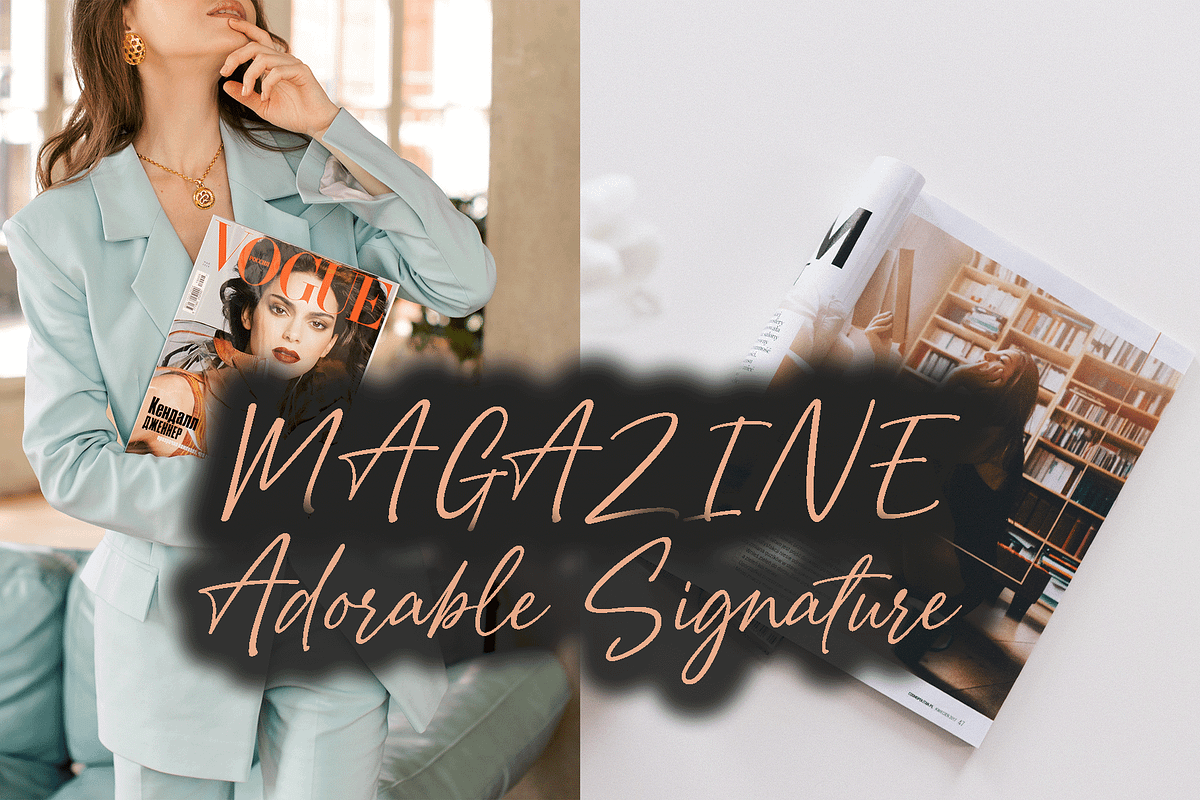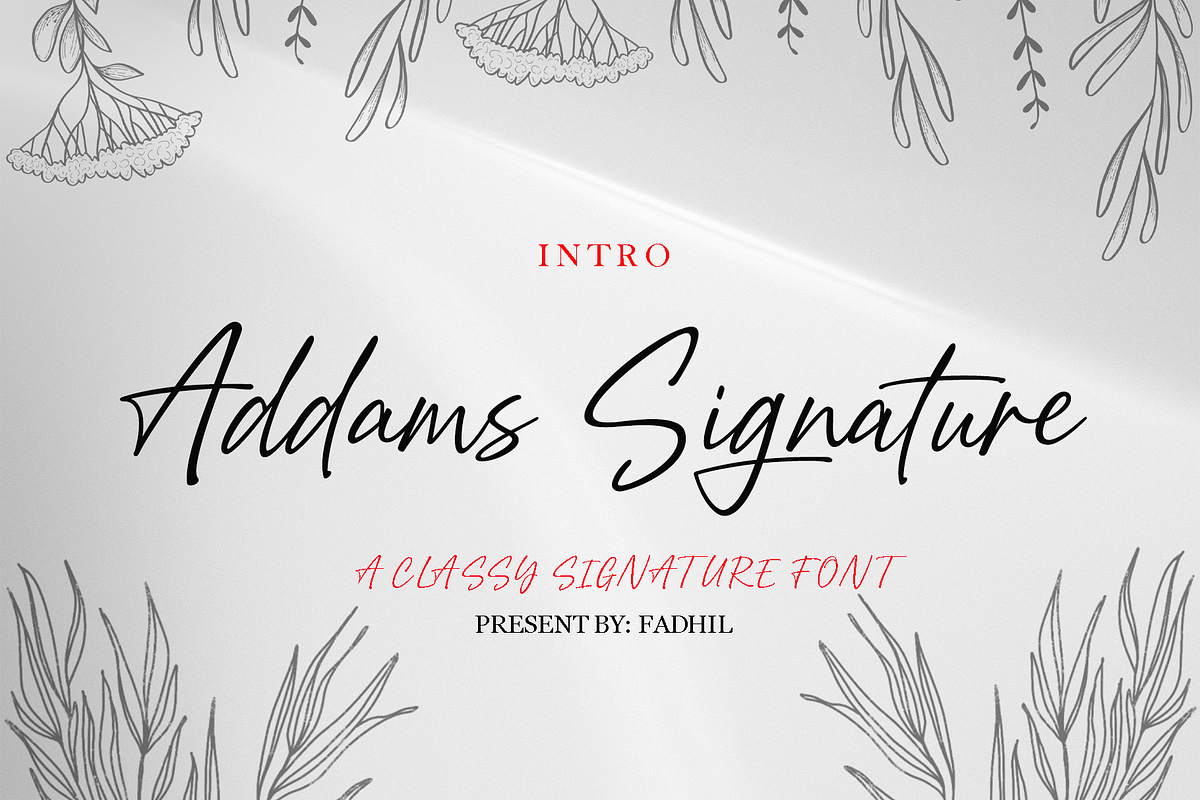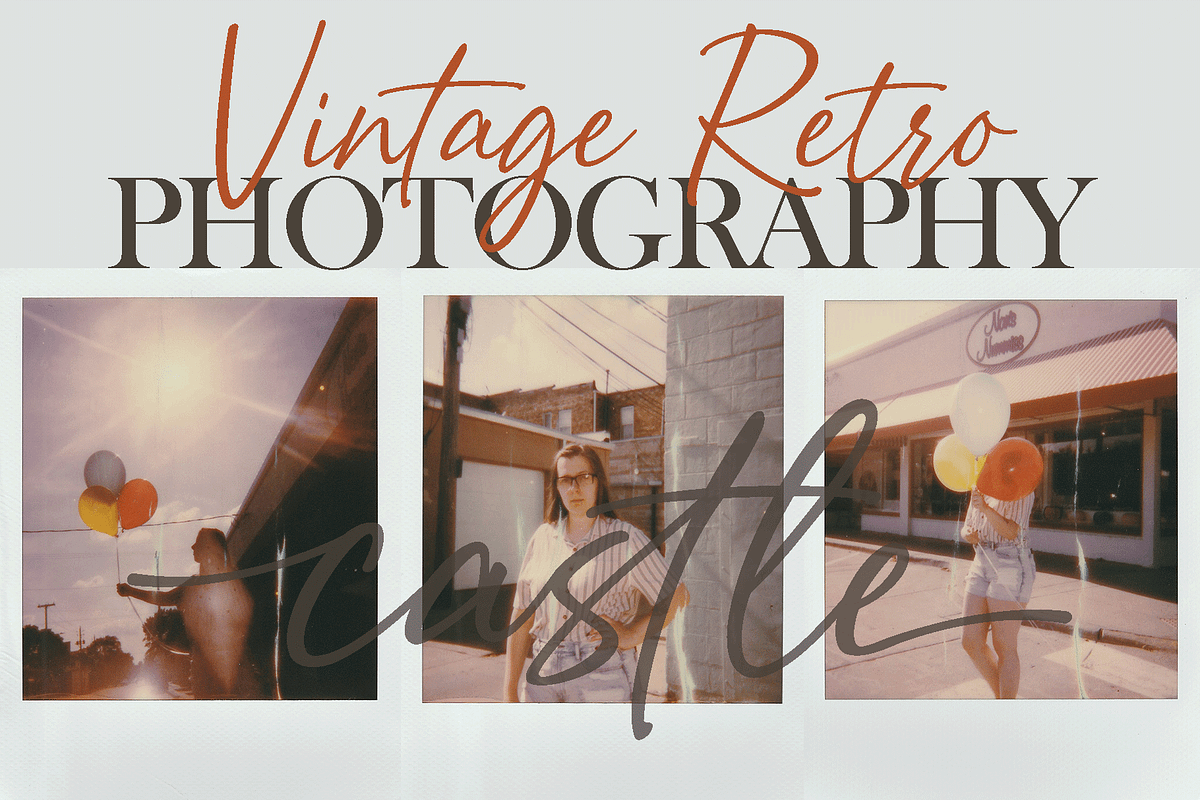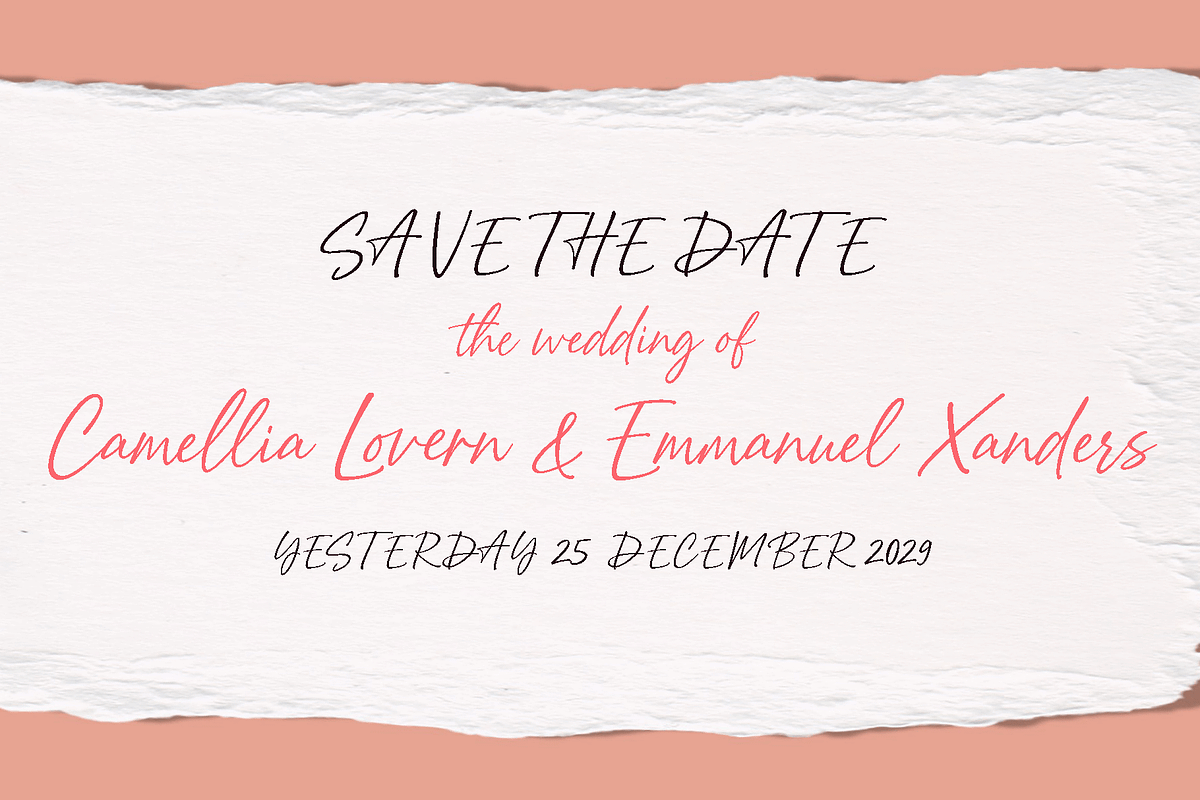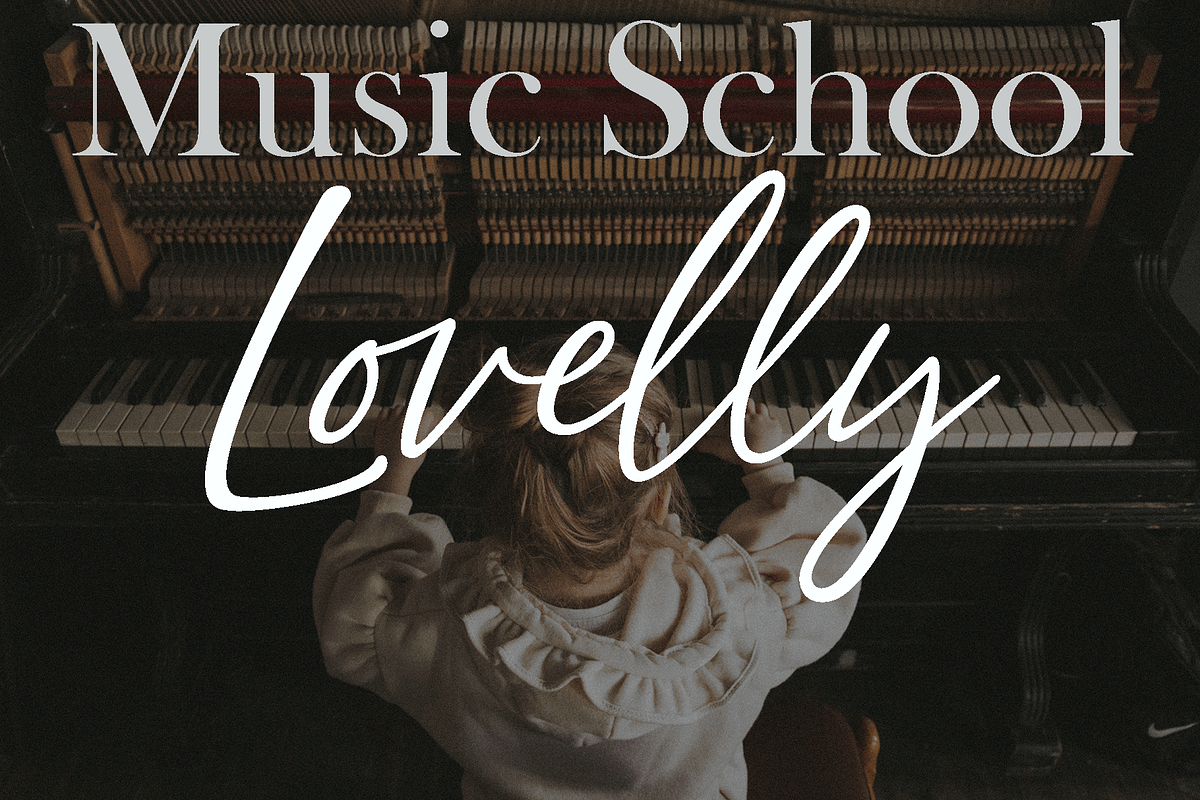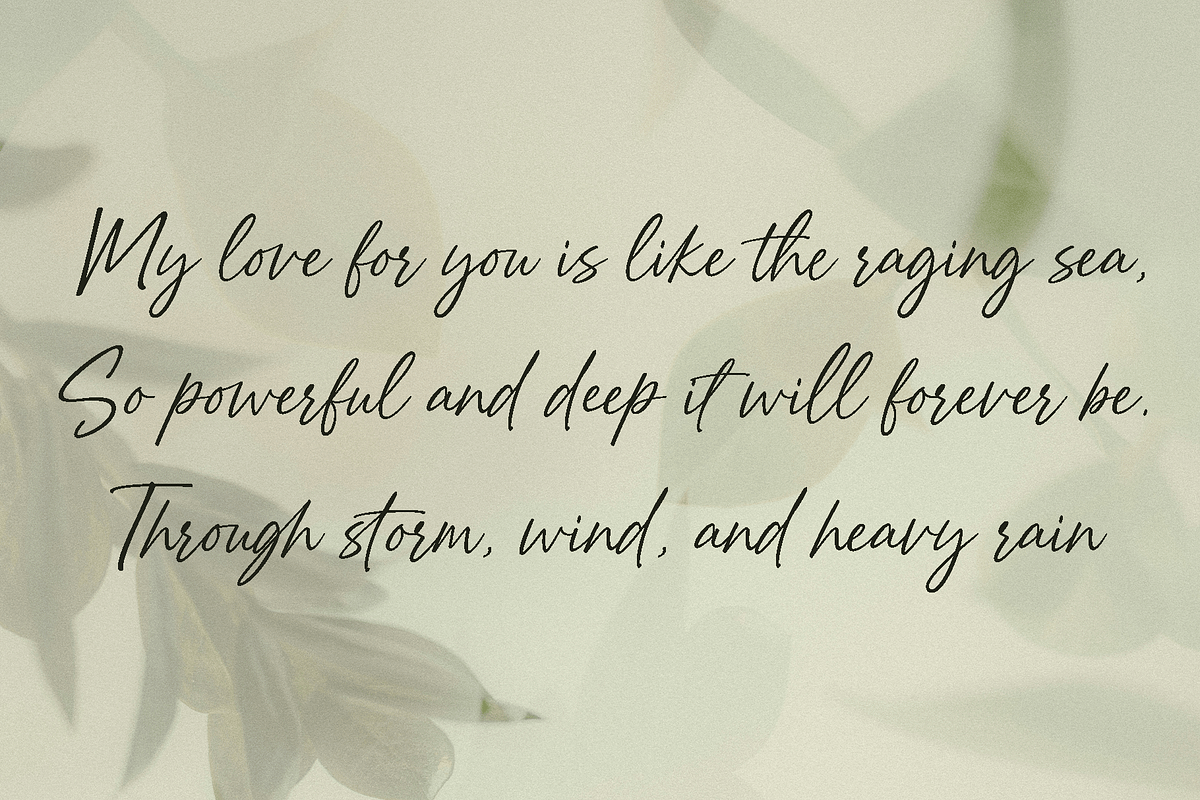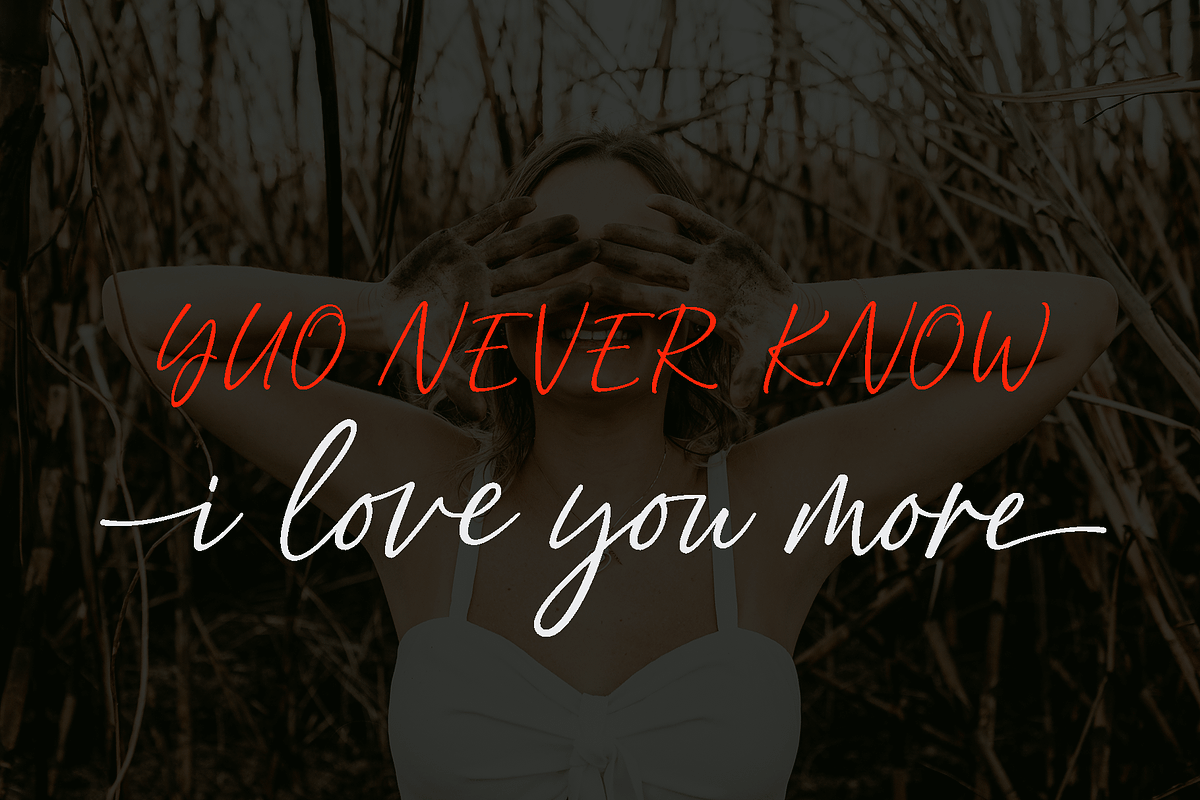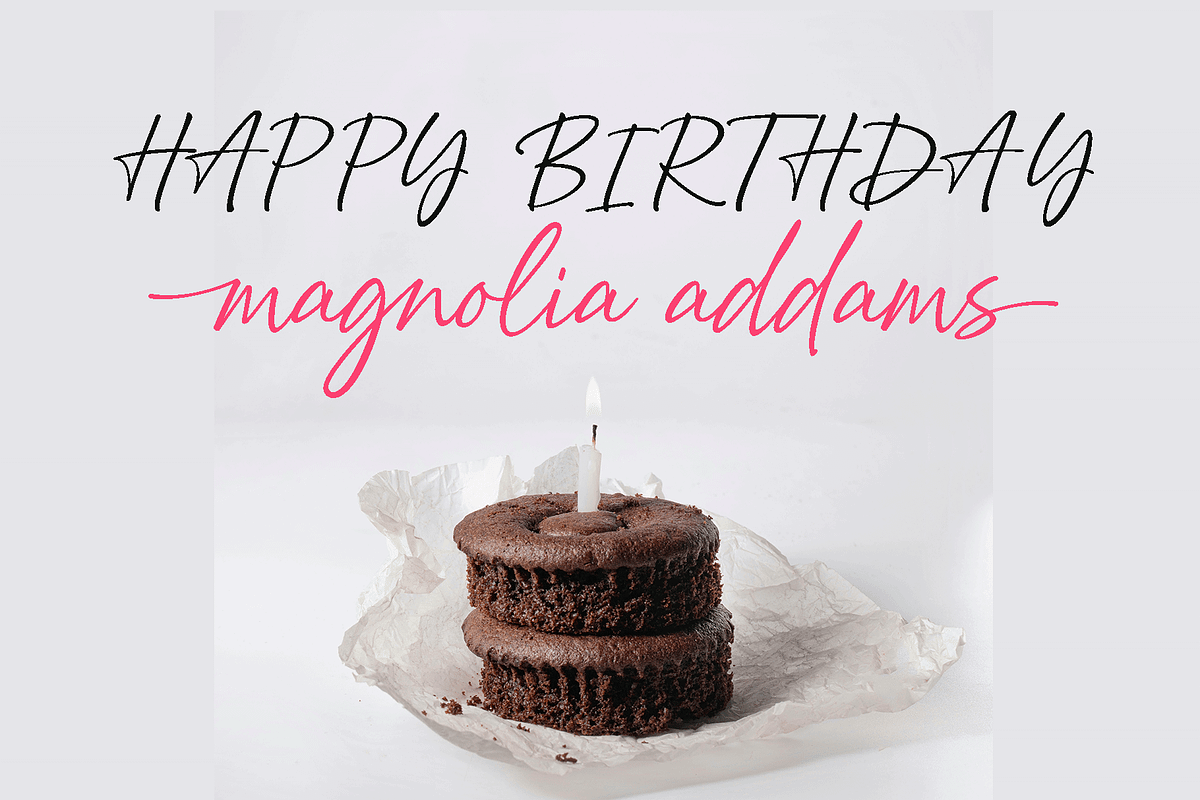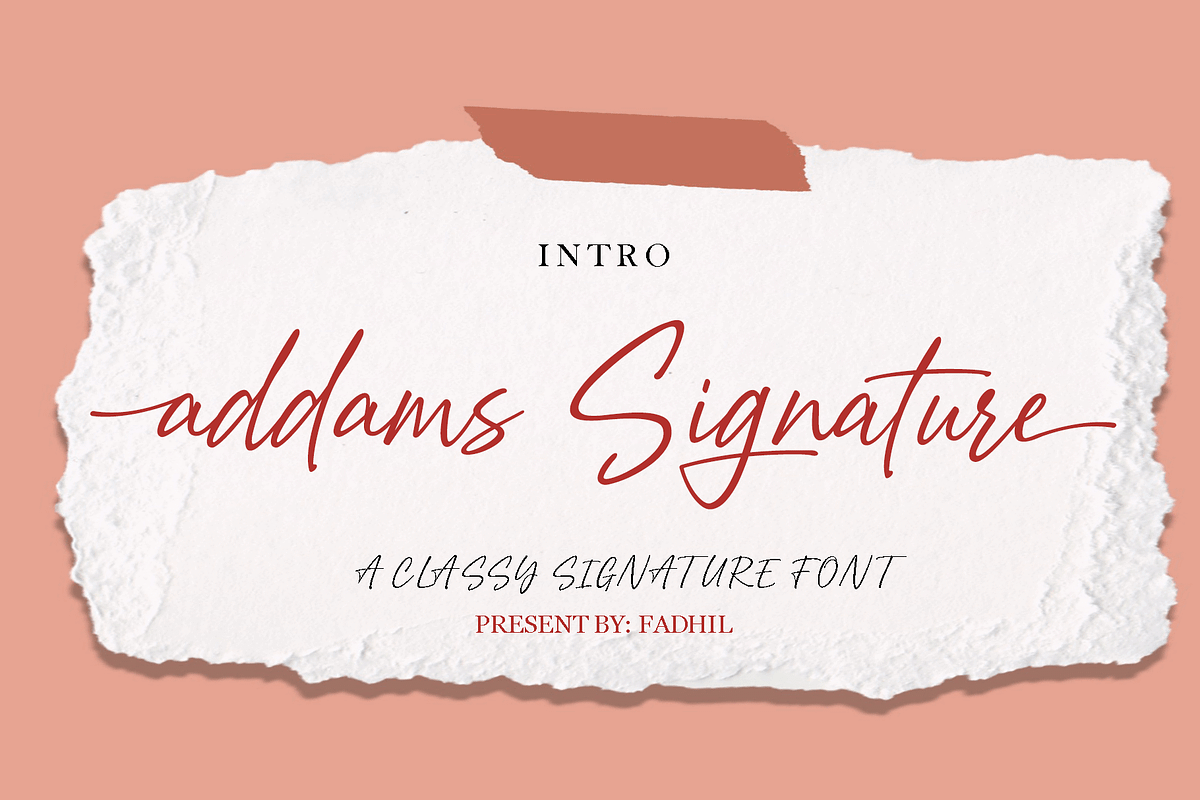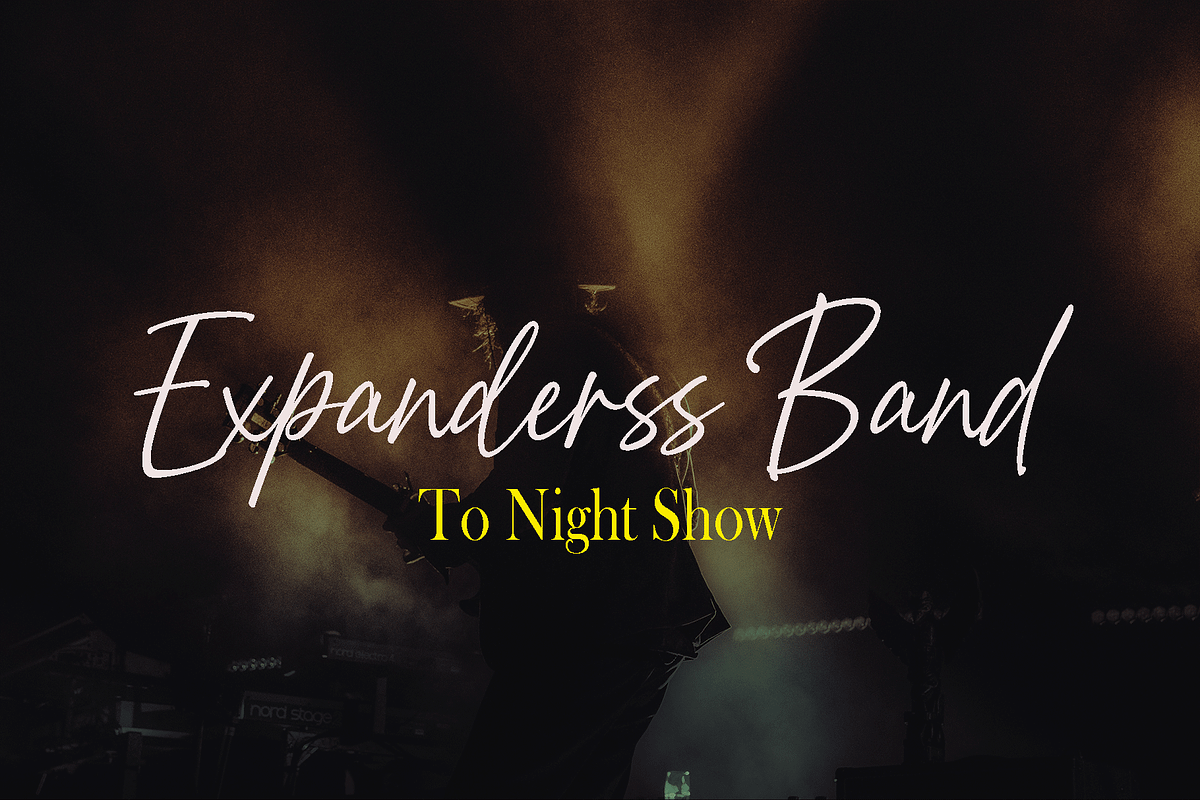
Addam Signature
Hello Font Lovers. Addam Signature, is another lovely modern script, signature and display font, which is combining the style of classic calligraphy with an modern style. combines from copperplate to contemporary typeface with a dancing baseline, modern and elegant touch. including alternates, and ligatures.
To enable, the OpenType Stylistic alternates, you need a program that supports OpenType features such as Adobe Illustrator CS/CC, Adobe Indesign CS/CC, Adobe Photoshop CS/CC, CorelDraw X6-X7 & Microsoft Office. a font that made the hand by having the character up and down like a dancer. Freestyle has a very unique style of signature, it is very suitable for use in the work of modern design.